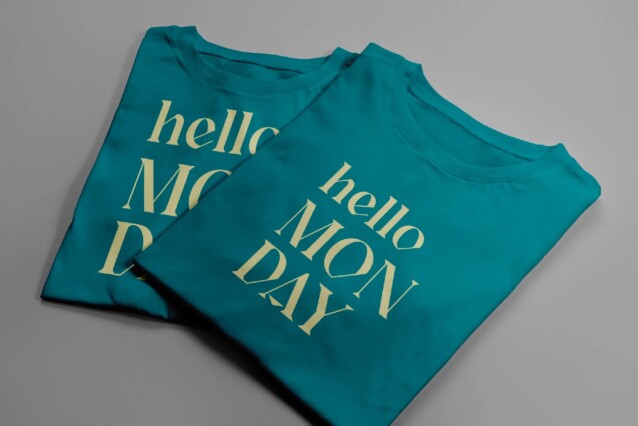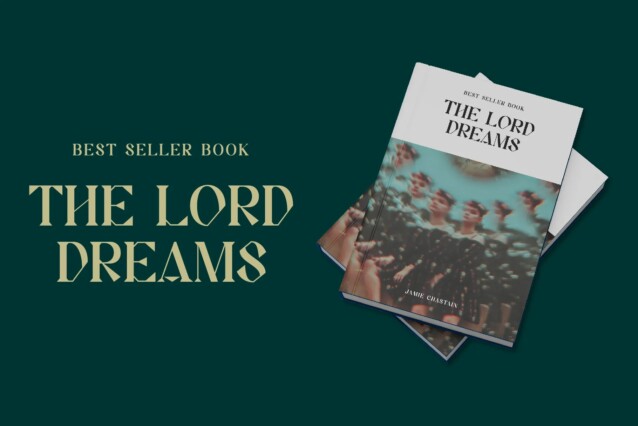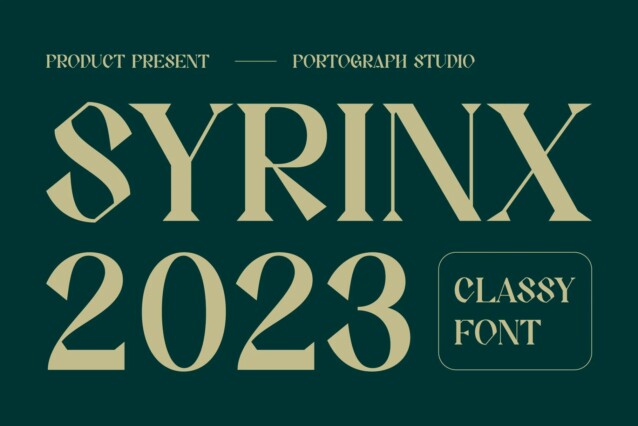
Syrinx Font is a luxury editorial-inspired font, designed with high contrast for fashion and lifestyle branding. For branding projects, logos, wedding designs, social media posts, advertisements, product packaging, product designs, labels, photography, watermarks, invitations, stationery, and anything requiring handwritten taste, SYRINX is perfect.